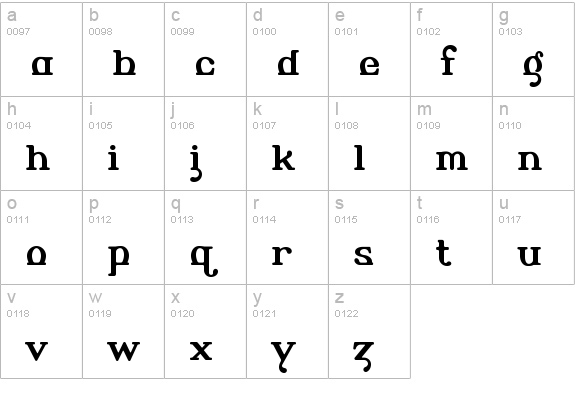
Alembic-BoldTwo is a modern and stylish font that exudes confidence and sophistication. Its bold and impactful design makes it perfect for eye-catching headlines, titles, and branding materials. The clean lines and distinct character shapes give this font a contemporary feel, making it a versatile choice for a wide range of design projects. What sets Alembic-BoldTwo apart is not only its striking appearance but also the fact that it is available for free. This means you can easily access and use this impressive font without any cost. You can download Alembic-BoldTwo for free at FontsMarket.com, where you'll find a wide selection of high-quality fonts to enhance your creative projects. Don't miss out on the opportunity to add this sleek and impactful font to your design toolkit today!